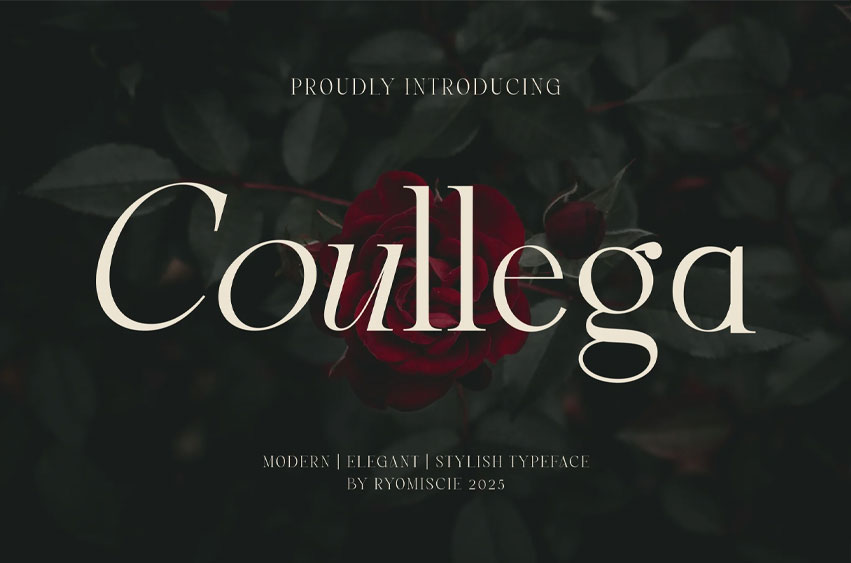
Coullega Font
Coullega Font Modern Font is a stylish and authentic display font. The font is suitable for any branding project, like logos, esport, and many more. outstanding in a wide range of contexts.
• Coullega Uppercase
• Coullega Lowercase
• Coullega Alternate